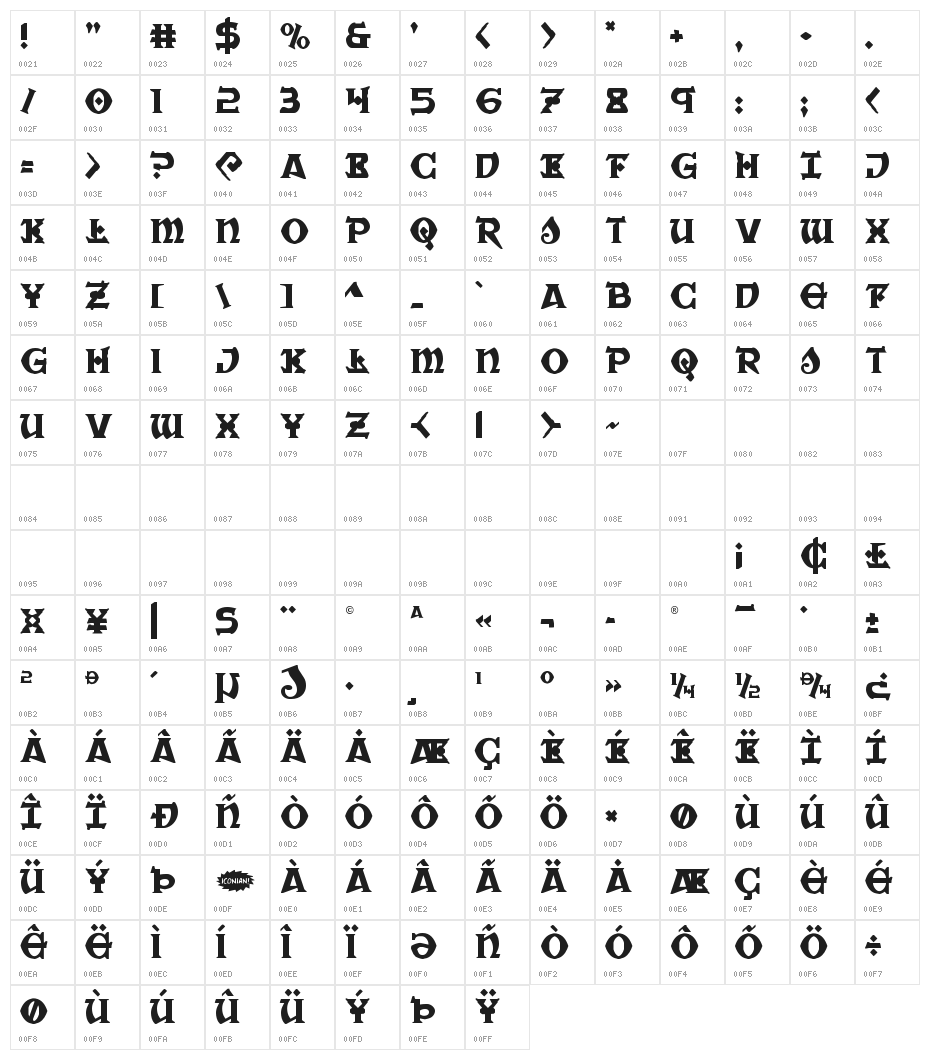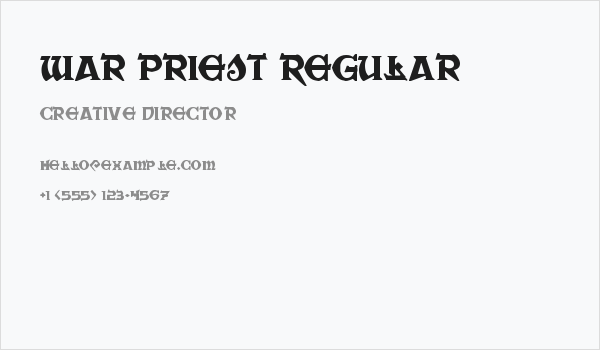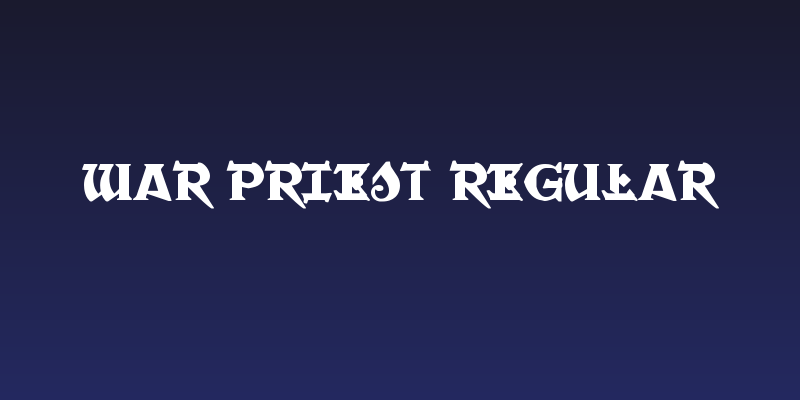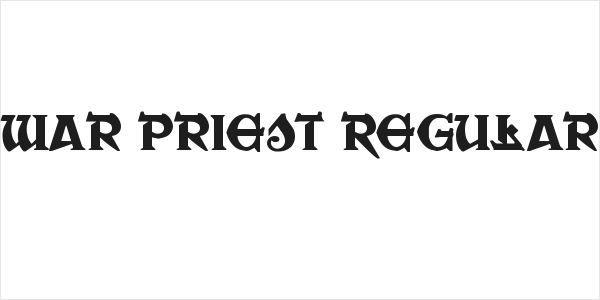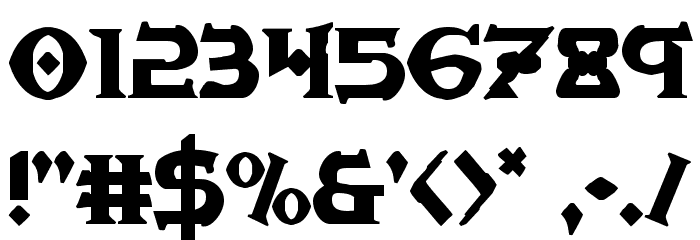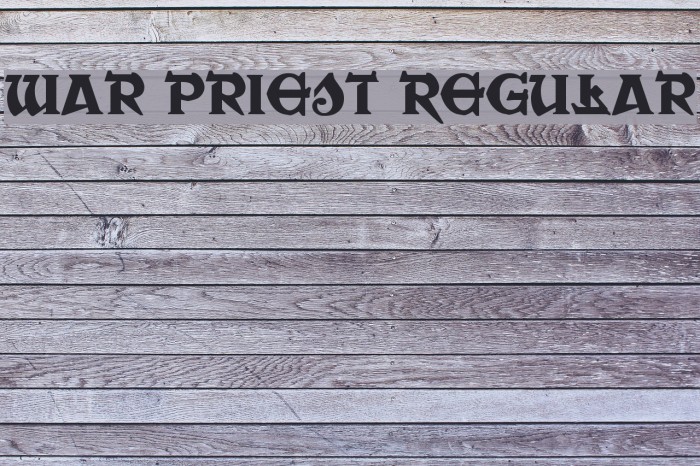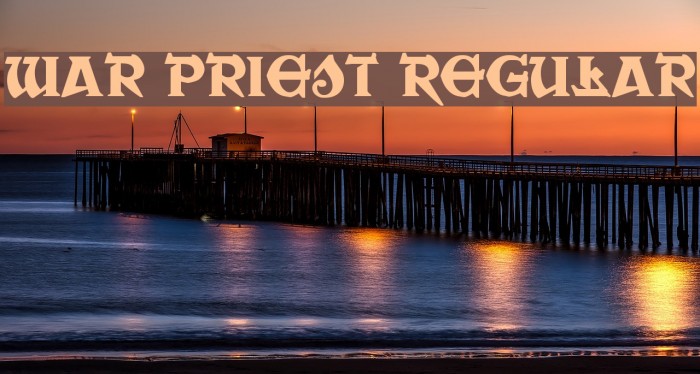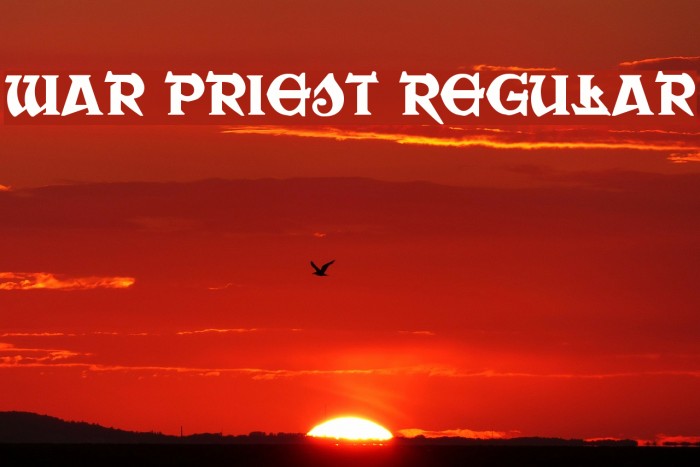
War Priest Regular Font
War Priest Regular Description
This font features a bold and dramatic style, characterized by sharp angles and a strong presence. The uppercase letters are designed with a medieval flair, incorporating pointed serifs and intricate details that evoke a sense of strength and authority. The lowercase letters maintain the same boldness, ensuring consistency throughout the typeface. The numerals and special characters are equally robust, making them suitable for impactful designs. This font is ideal for projects that require a commanding and historical aesthetic.
| Overall Style | Medieval, Dramatic |
| Proposed Projects | Ideal for fantasy-themed designs, video game titles, movie posters, and branding that requires a historical or powerful look. |